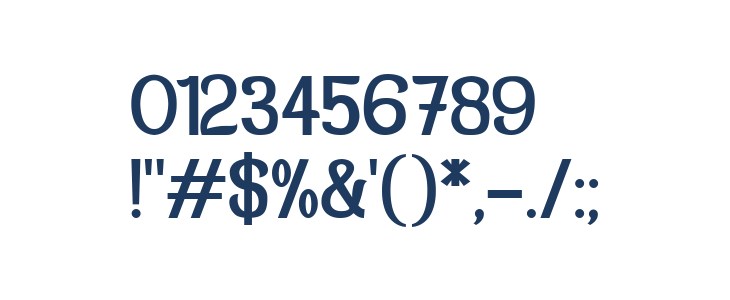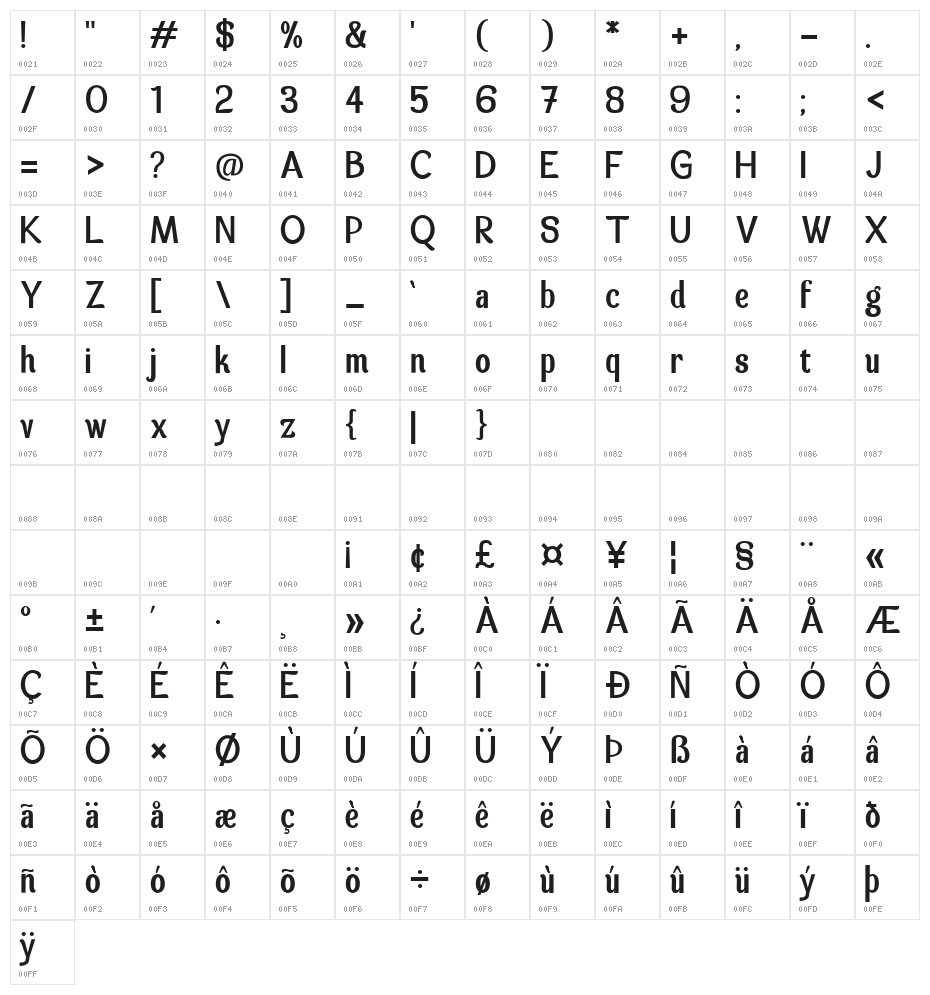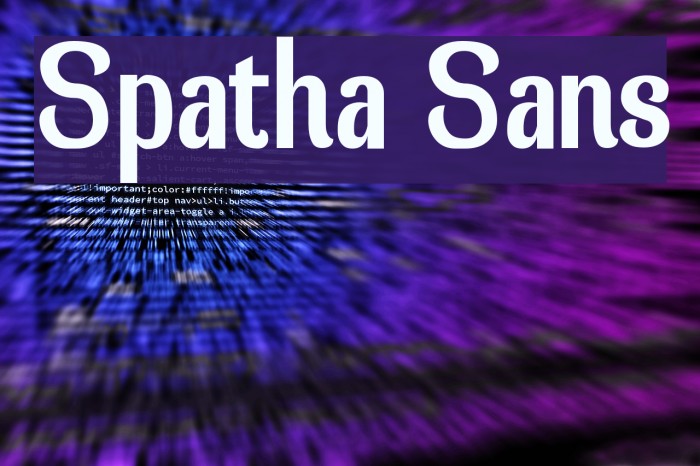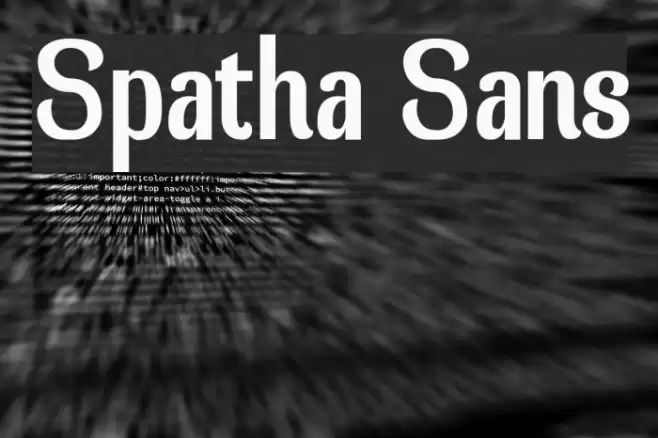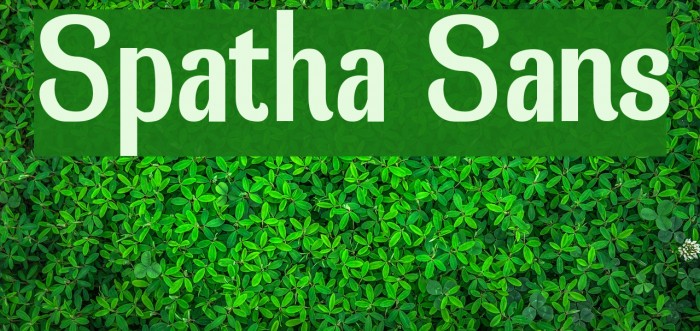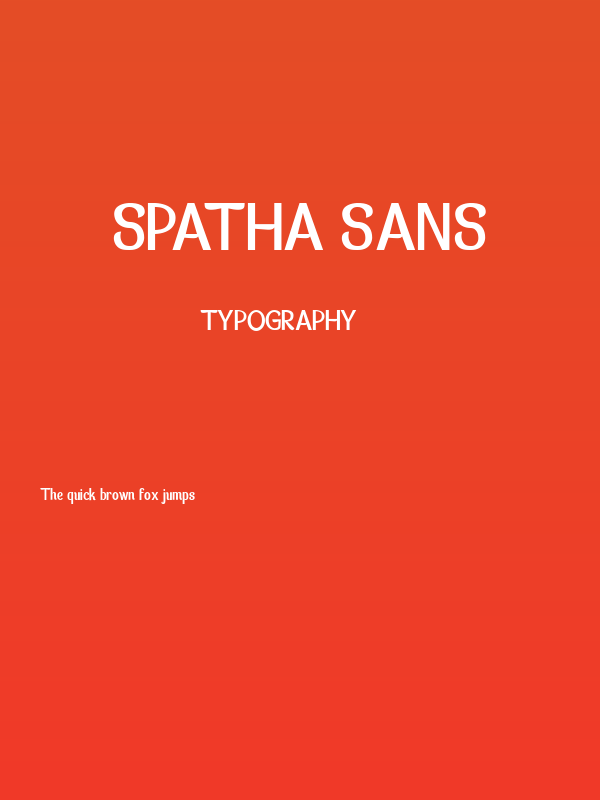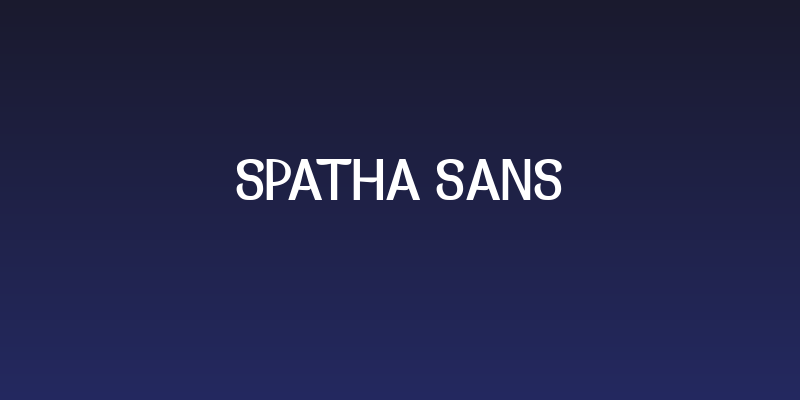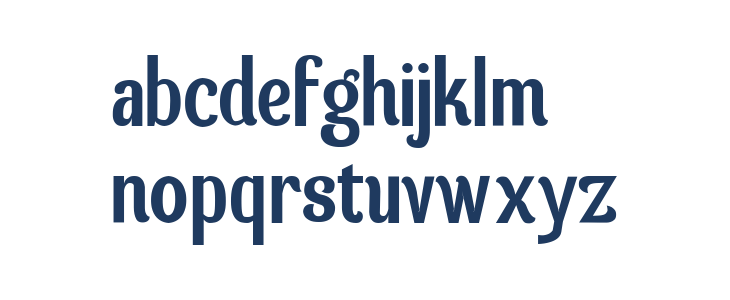
Spatha Sans Font
Spatha Sans Description
This font features a clean and modern sans-serif style with a slightly condensed appearance. The uppercase letters are bold and assertive, while the lowercase letters maintain a consistent and harmonious flow. The numerals are clear and easy to read, making them suitable for various applications. Special characters are well-defined, adding versatility to the font's usage. The overall design is balanced, with a medium contrast in stroke thickness, providing a professional and contemporary look.
Use CaseHeadlines, Body text, Logos
Proposed ProjectsIdeal for branding, advertising, web design, and editorial projects where a modern and professional appearance is desired.